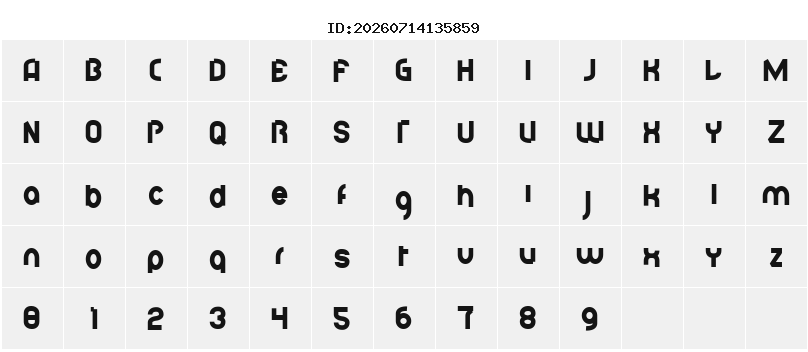
• Font Name: Jenkins
• Full Font Name: Jenkins
About Jenkins.ttf
Jenkins.ttf is a modern, elegant sans-serif font designed for ultimate readability and visual harmony. Perfect for branding, headlines, web design, and print materials.